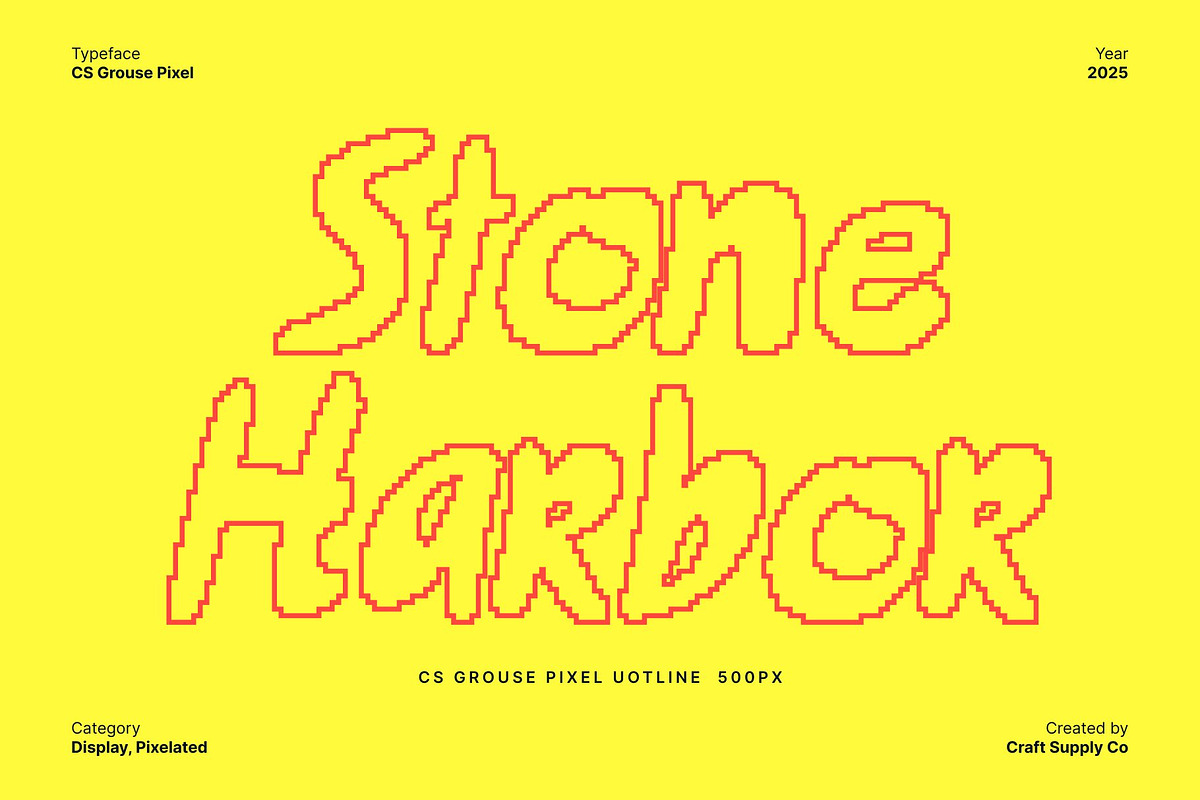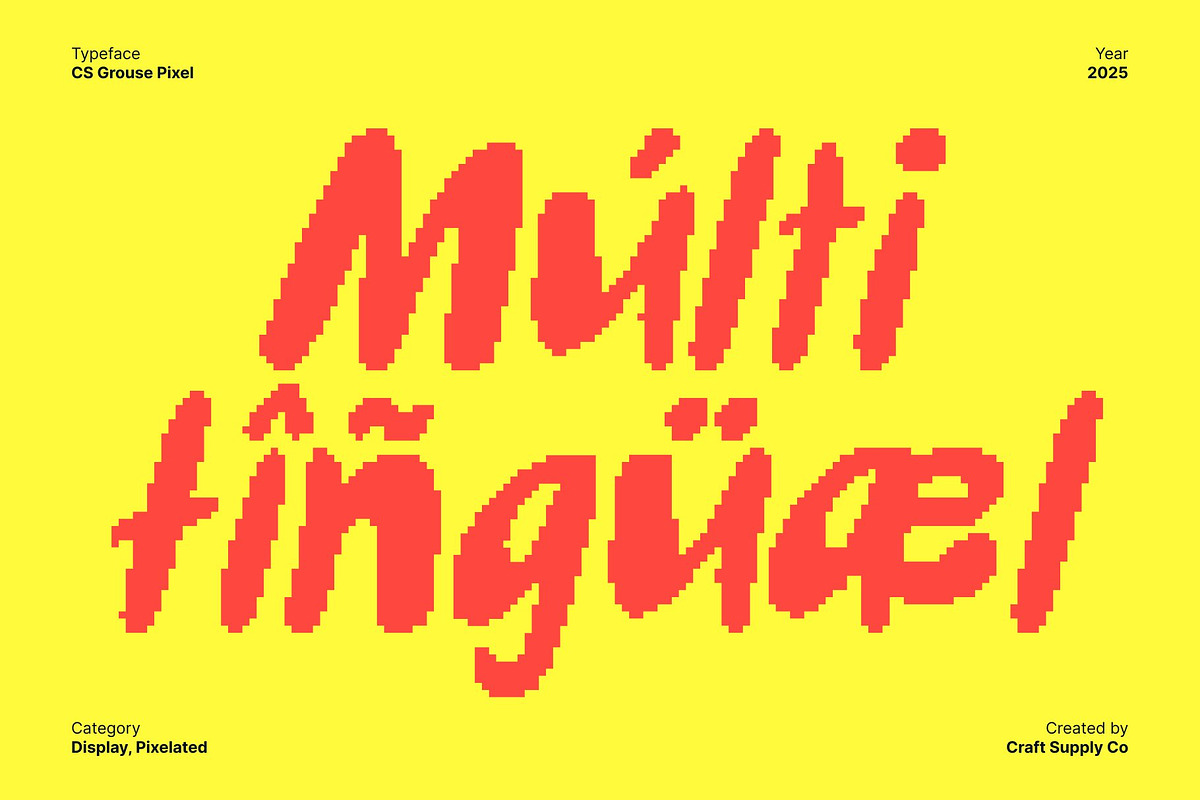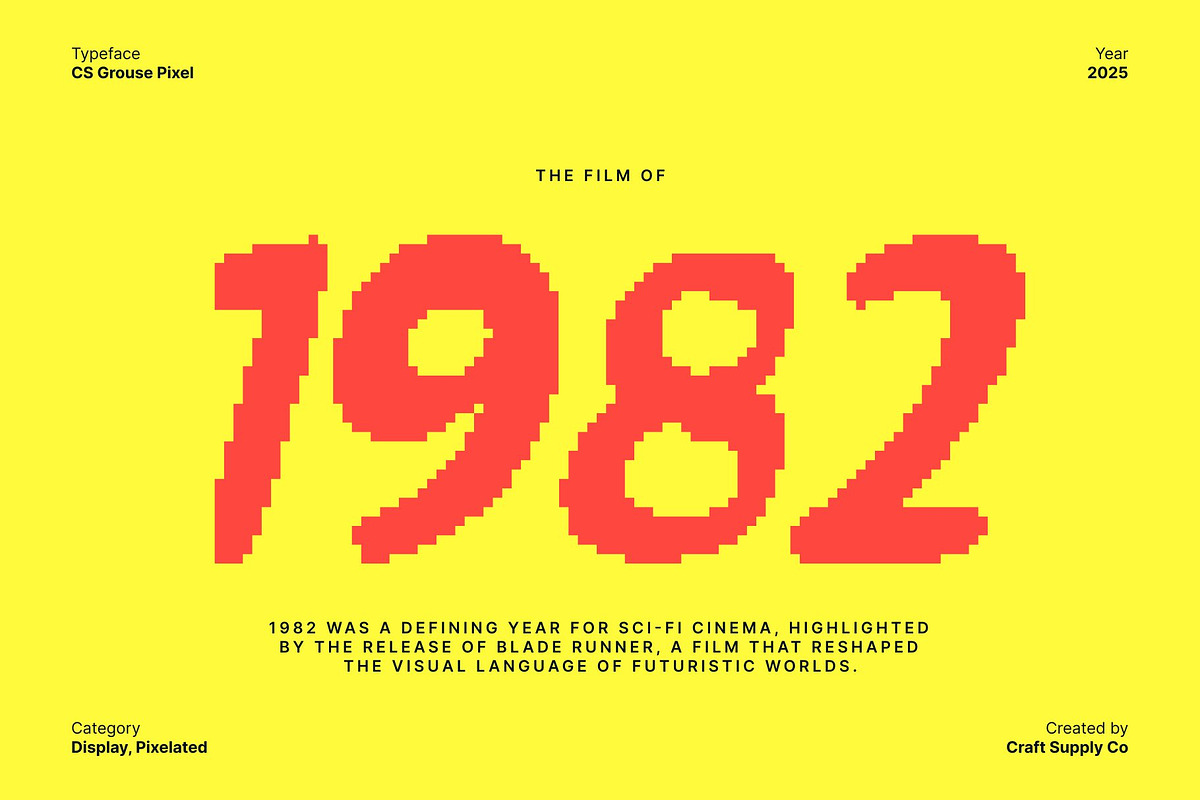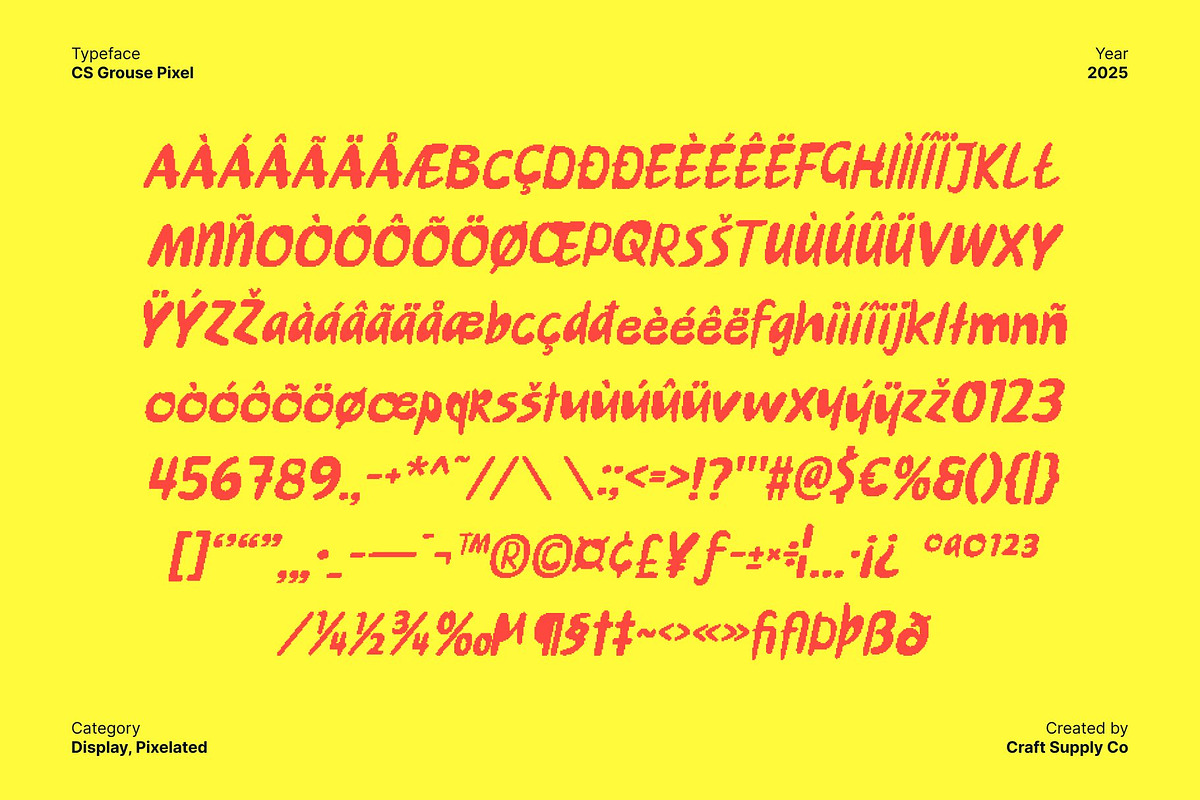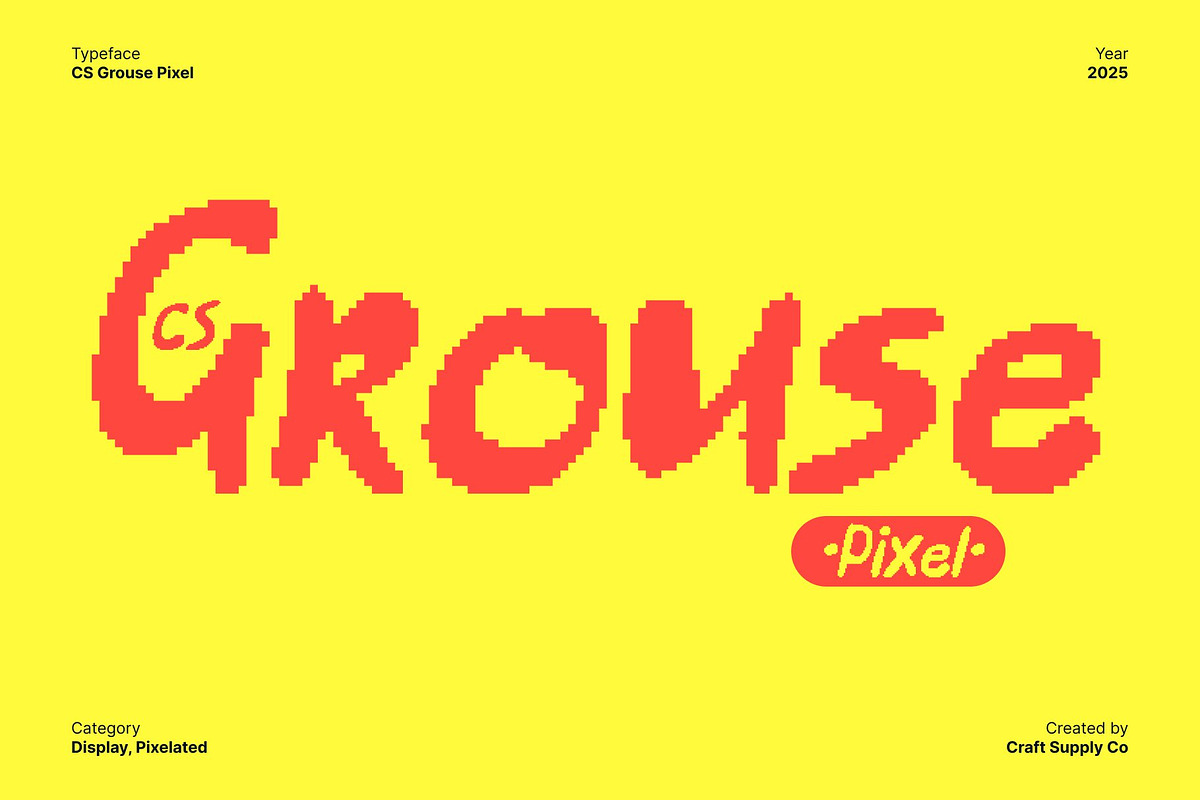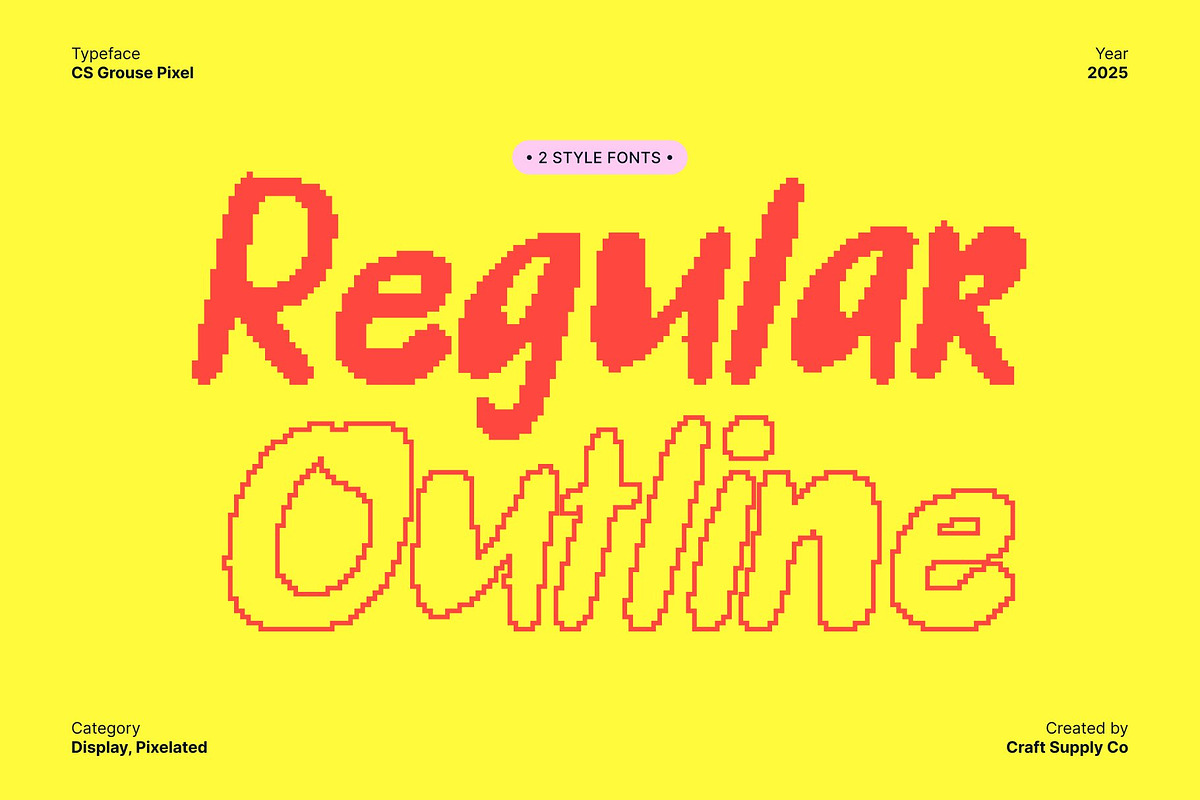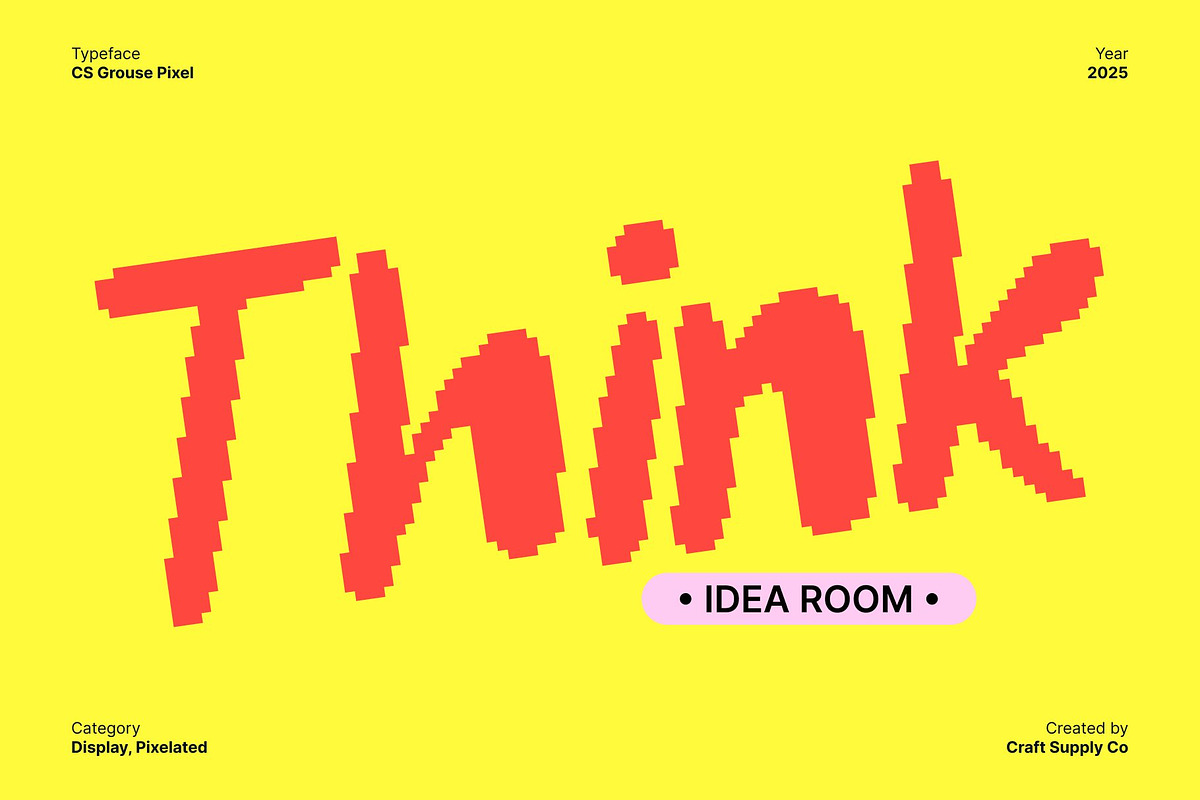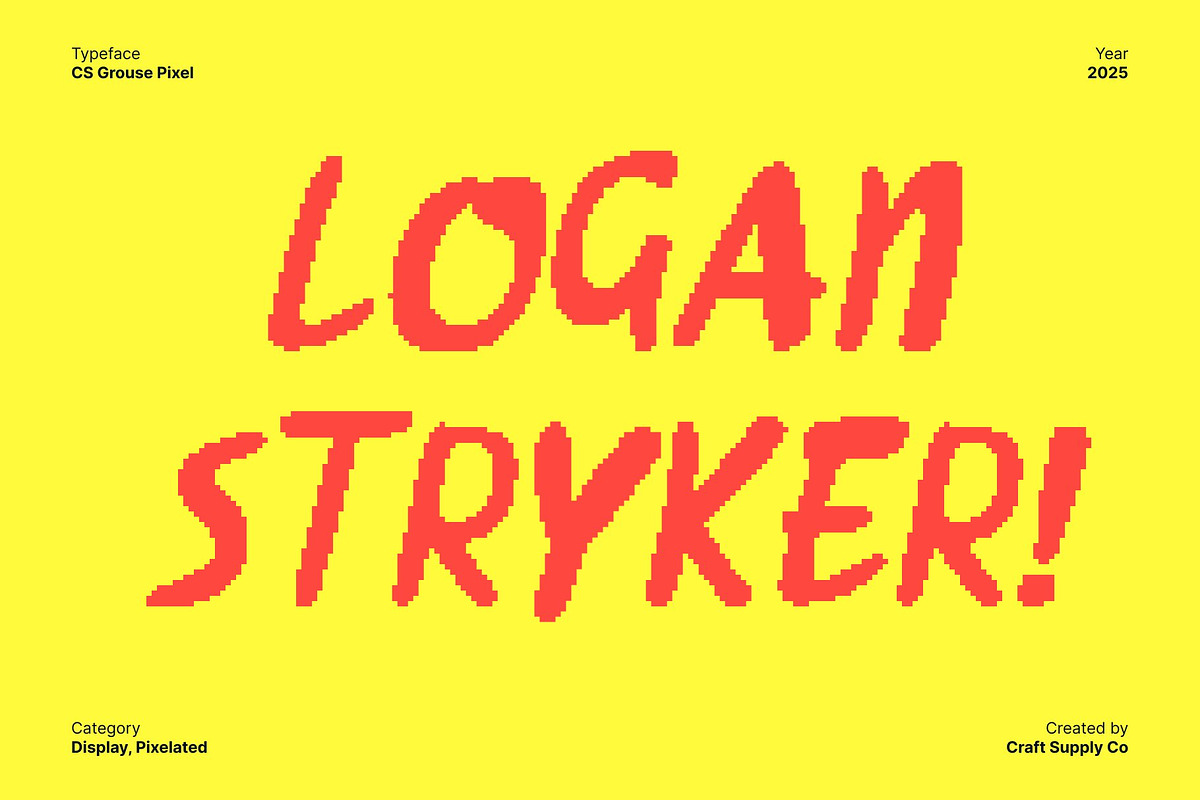
CS Grouse Pixel
CS Grouse Pixel – Playful Beach Inspired Font with a Modern Pixel Twist
Bright, Sunny, and Full of Vacation Energy This font captures the warmth and cheerfulness of a seaside escape. Designed with soft, flowing shapes that echo waves, sunshine, and carefree moments, this beach-inspired display font radiates positivity. Its friendly and relaxed personality makes it perfect for fun seasonal themes, summer promotions, travel branding, and joyful visual storytelling.
Beachy Letterforms for a Fun and Fresh Look Every curve of embodies the lively atmosphere of a beach day lighthearted, energetic, and welcoming. The playful forms bring a refreshing touch to posters, packaging, event graphics, and casual branding projects. Its inviting character instantly elevates any design with a splash of fun and a hint of tropical charm.
Pixel Style for a Modern Digital Feel Adding a clever digital twist, the pixelated detailing gives this beachy font a contemporary and unique edge. The pixel texture enhances its friendliness while introducing a modern, digital aesthetic. This combination of tropical flair and pixel sharpness results in a typeface that feels both nostalgic and up-to-date.
Versatile for Creative and Seasonal Projects This font adapts easily across a wide range of creative uses from summer campaigns and beach-themed branding to social media graphics, merchandise, and playful editorial layouts. Whether you’re designing for a vacation event or creating a fun visual identity, this font delivers a vibrant, approachable style packed with digital charm.
- CS Grouse Pixel Regular
- CS Grouse Pixel Outline